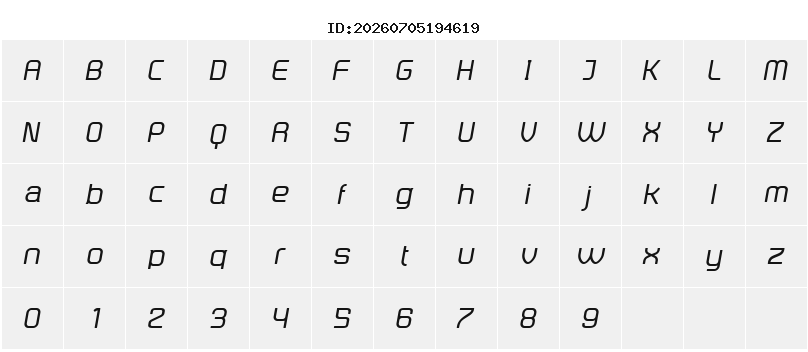
• Font Name: DistillaRegular Italic
• Full Font Name: DistillaRegular Italic
About DistillaRegular Italic.ttf
DistillaRegular Italic.ttf is a modern, elegant sans-serif font designed for ultimate readability and visual harmony. Perfect for branding, headlines, web design, and print materials.